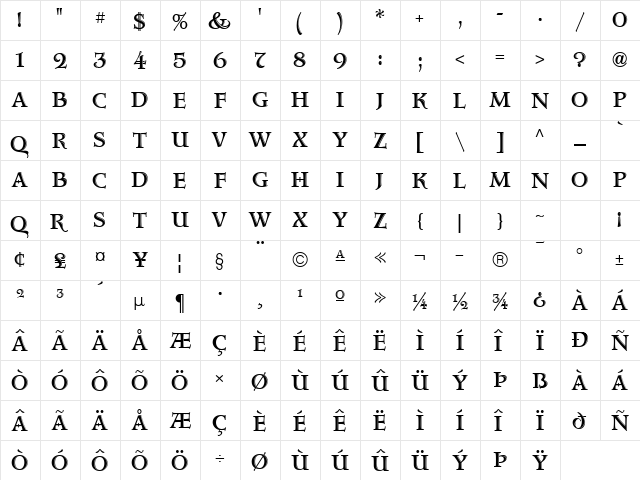
Aquitaine Initials ICG Regular Font Preview
Aquitaine Initials ICG Regular
Design Context for Aquitaine Initials ICG Typeface
Aquitaine Initials ICG takes a measured approach to typography — its balanced proportions and neutral character make it a reliable workhorse for both digital and print work.